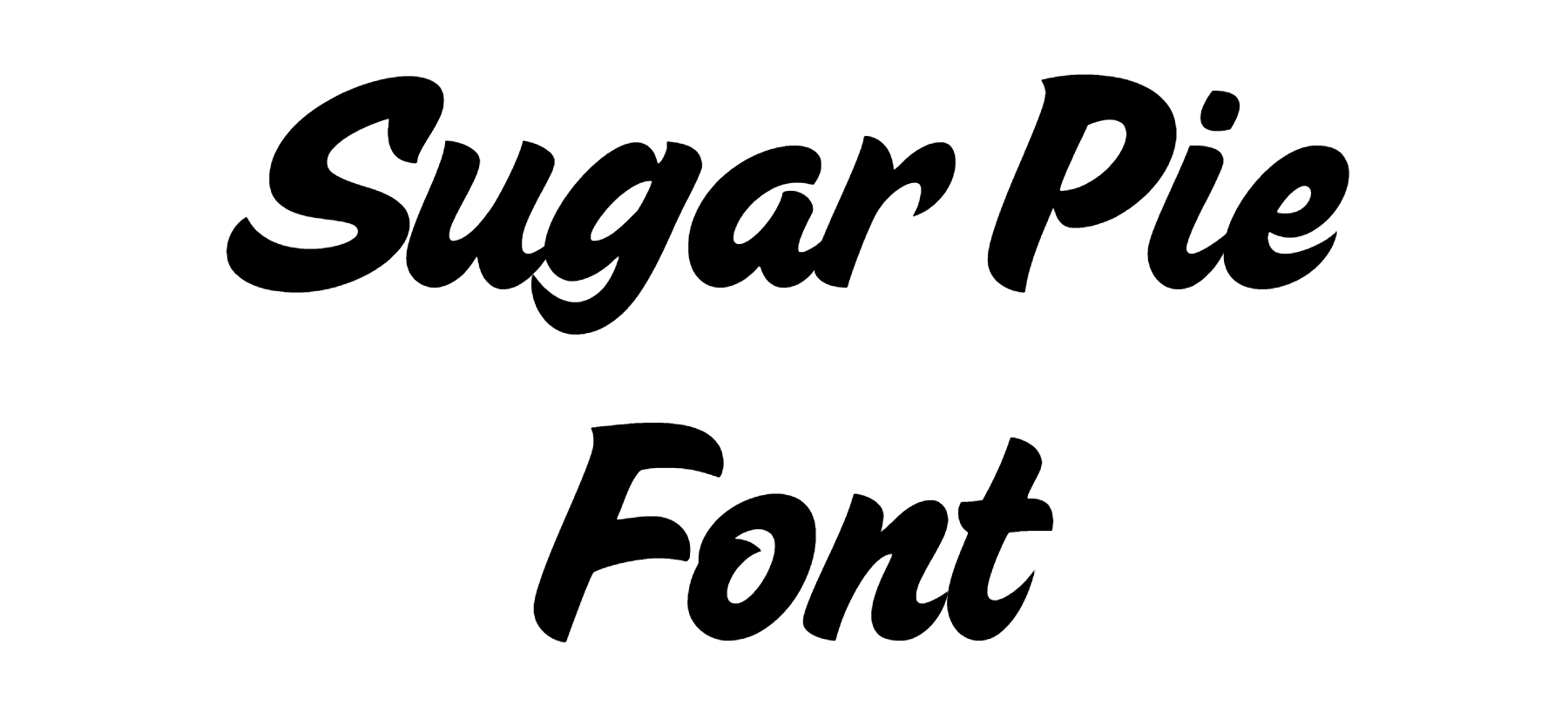
Sugar Pie
Sugar Pie is a cartoon font. Its bouncy, rounded letters feel playful, like lettering from a cartoon or a comic book. It's a free download, and you can try it with your own text in the preview above first.
What You Can Type With Sugar Pie
Sugar Pie covers the full alphabet in upper and lowercase, plus all ten numbers, so you can set names, dates and prices without switching fonts. Common punctuation such as &, !, ? and @ is included as well. It also has the accented letters you need for Spanish, French, German, Portuguese and Italian.
Where Sugar Pie Works Best
Think of Sugar Pie for kids' books, birthday invites and fun YouTube thumbnails. Cartoon fonts are great for short, fun lines. If you place it over a busy photo, add a thick outline or a drop shadow so it stays readable.
Does Sugar Pie support accented letters?
Yes. Sugar Pie includes the accented letters needed for Spanish, French, German, Portuguese and Italian, so it works for more than just English.